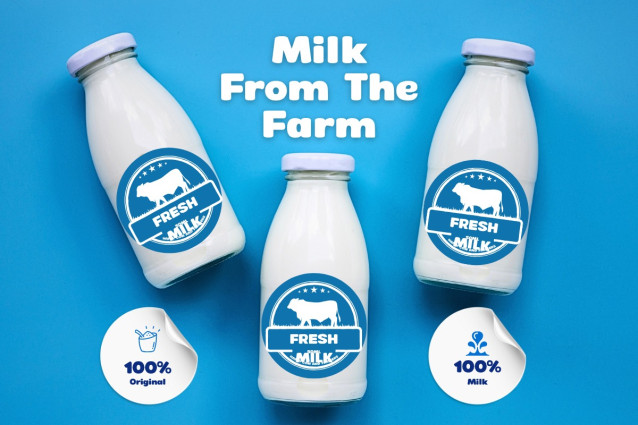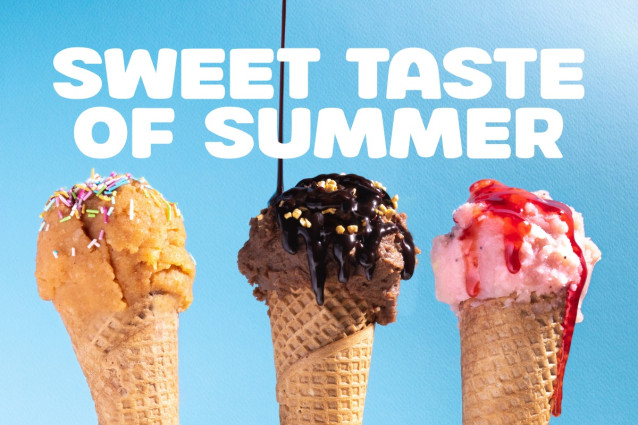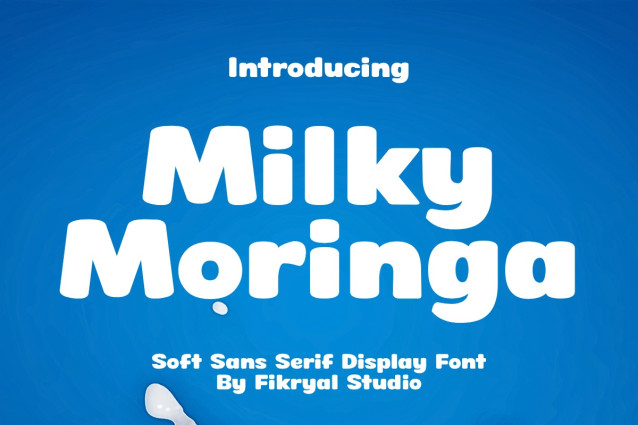
Milky Moringa Font
Milky Moringa Font – a bold and bouncy display font that brings joy to every letterform! With its rounded curves and friendly charm, Milky Moringa is the perfect choice for projects that need a touch of fun, softness, and sweetness.